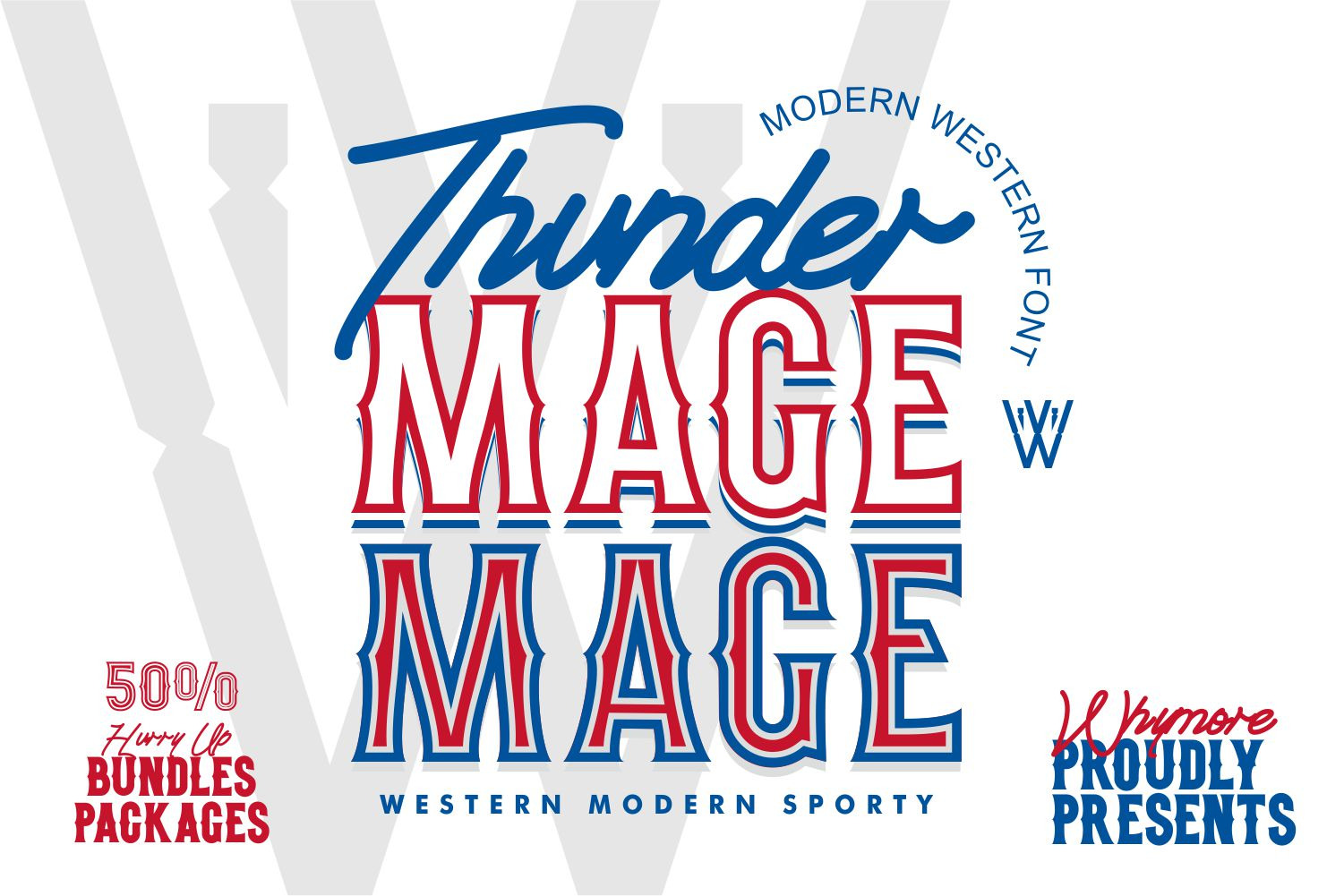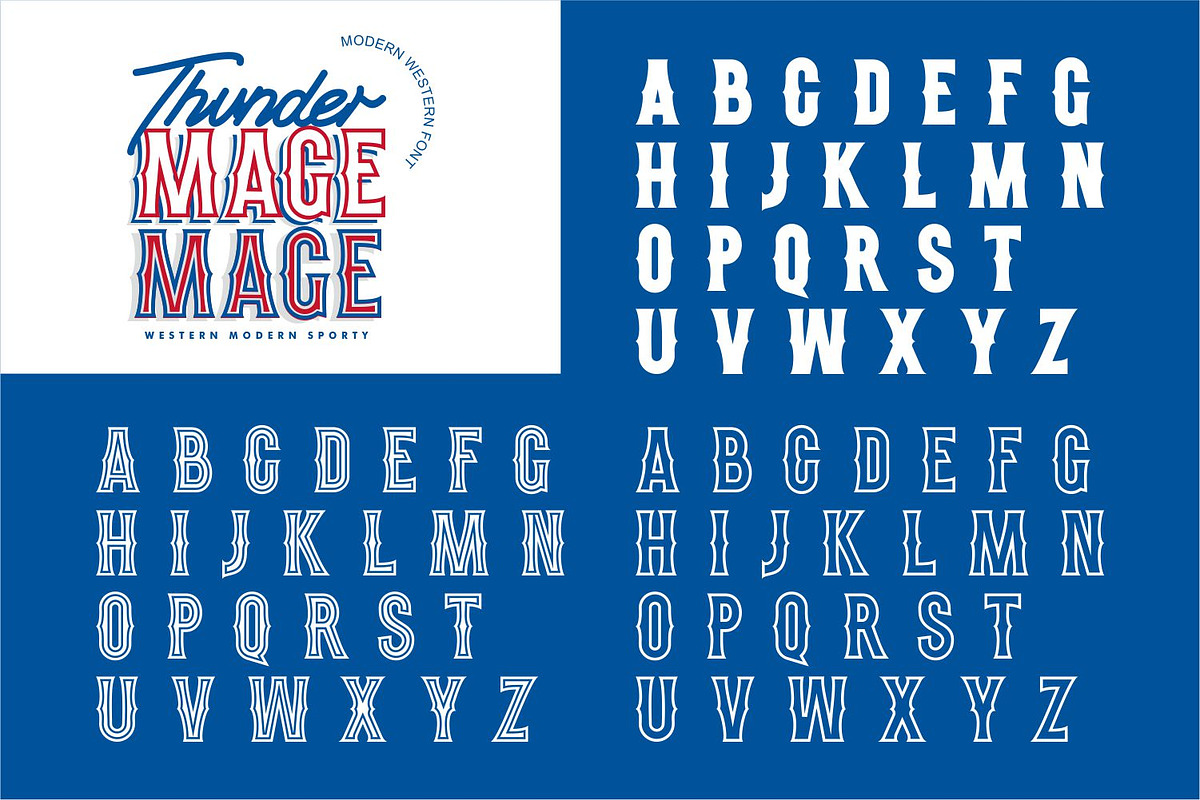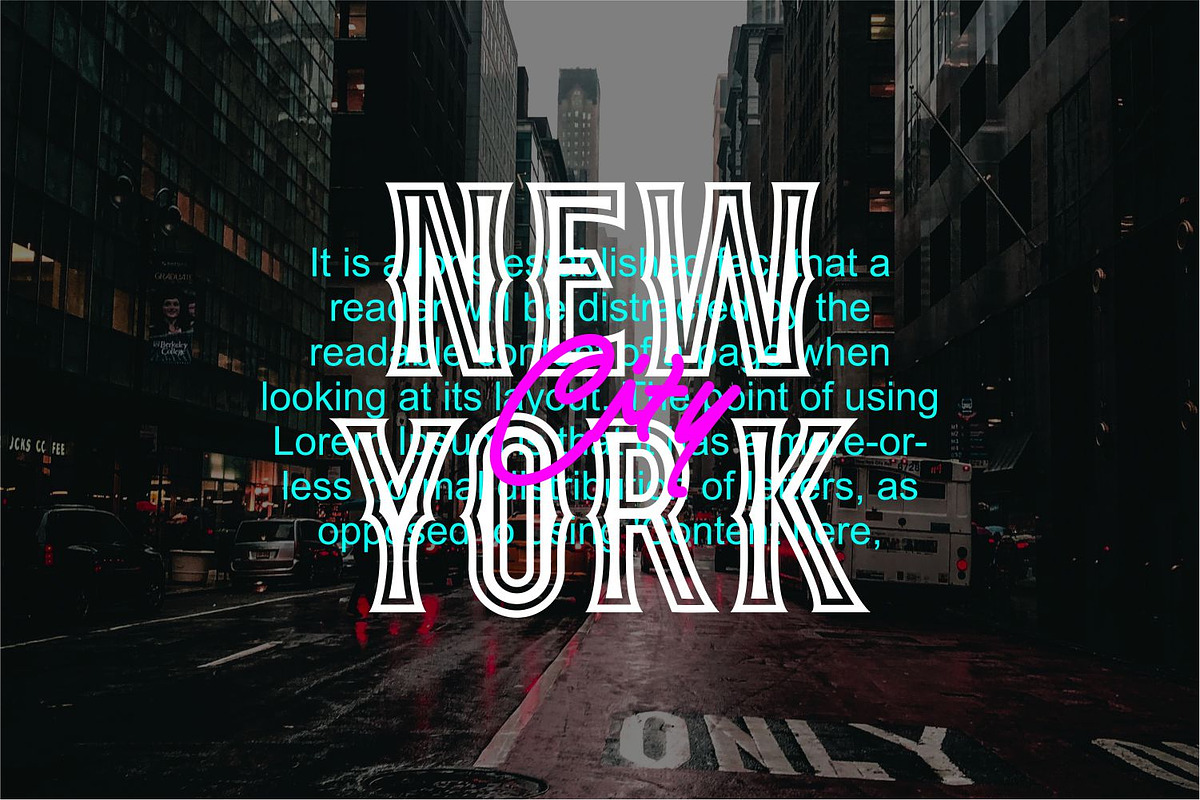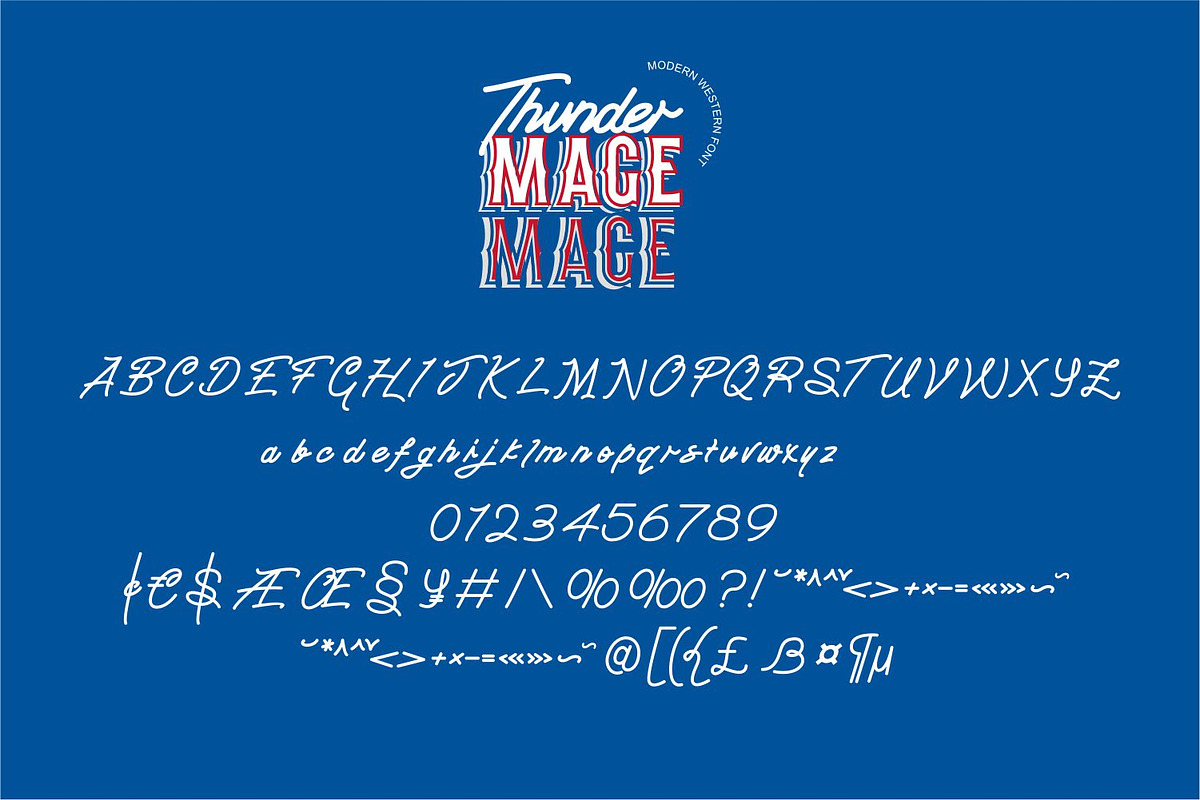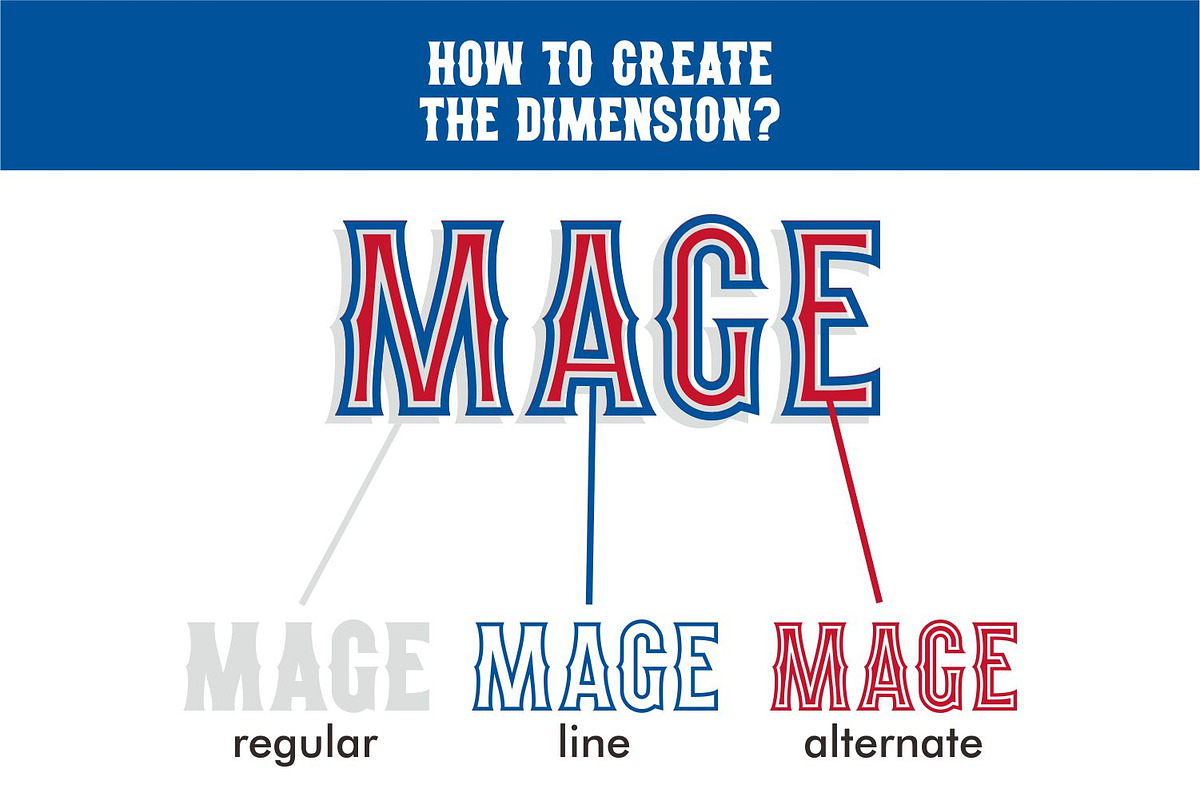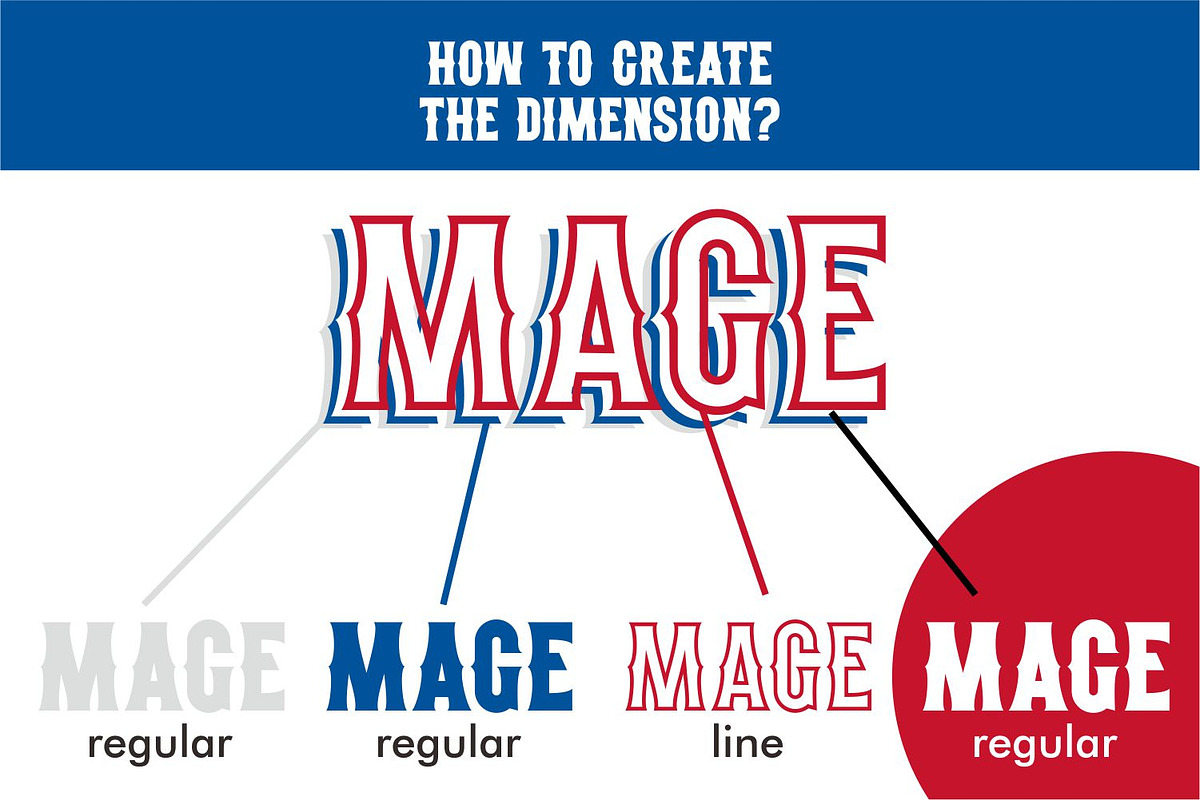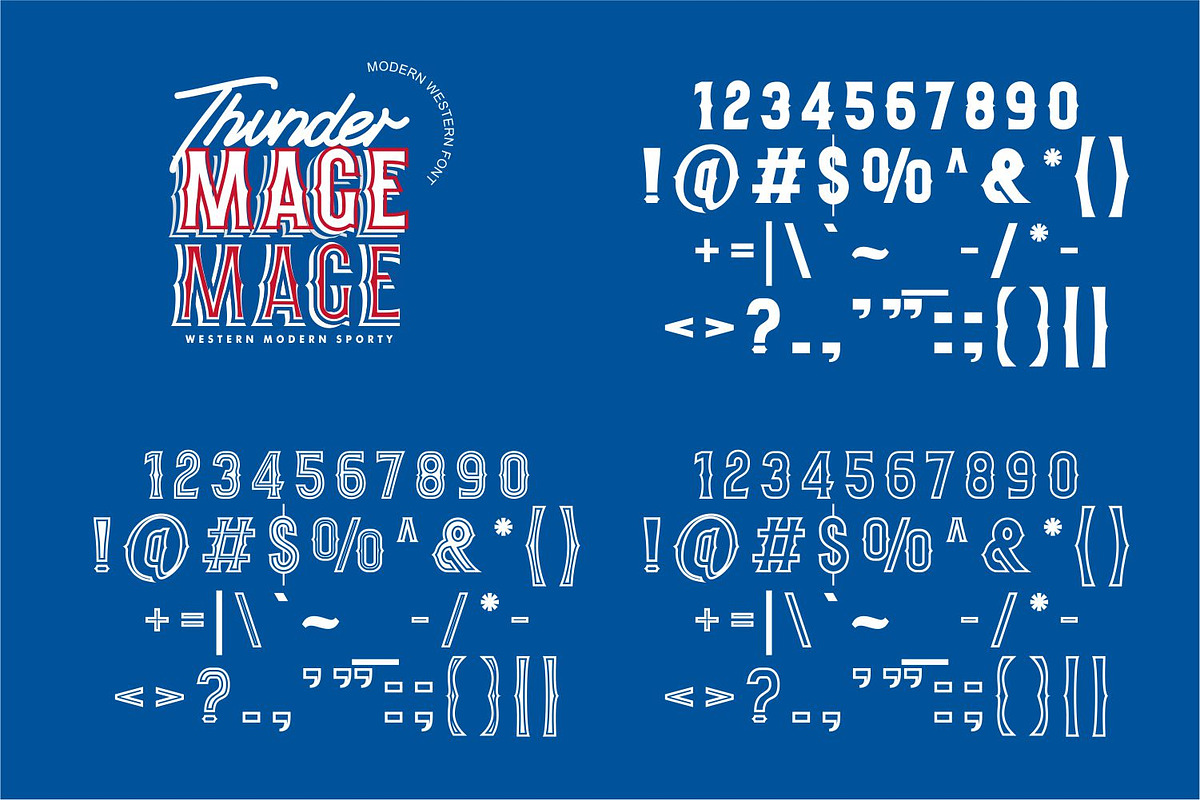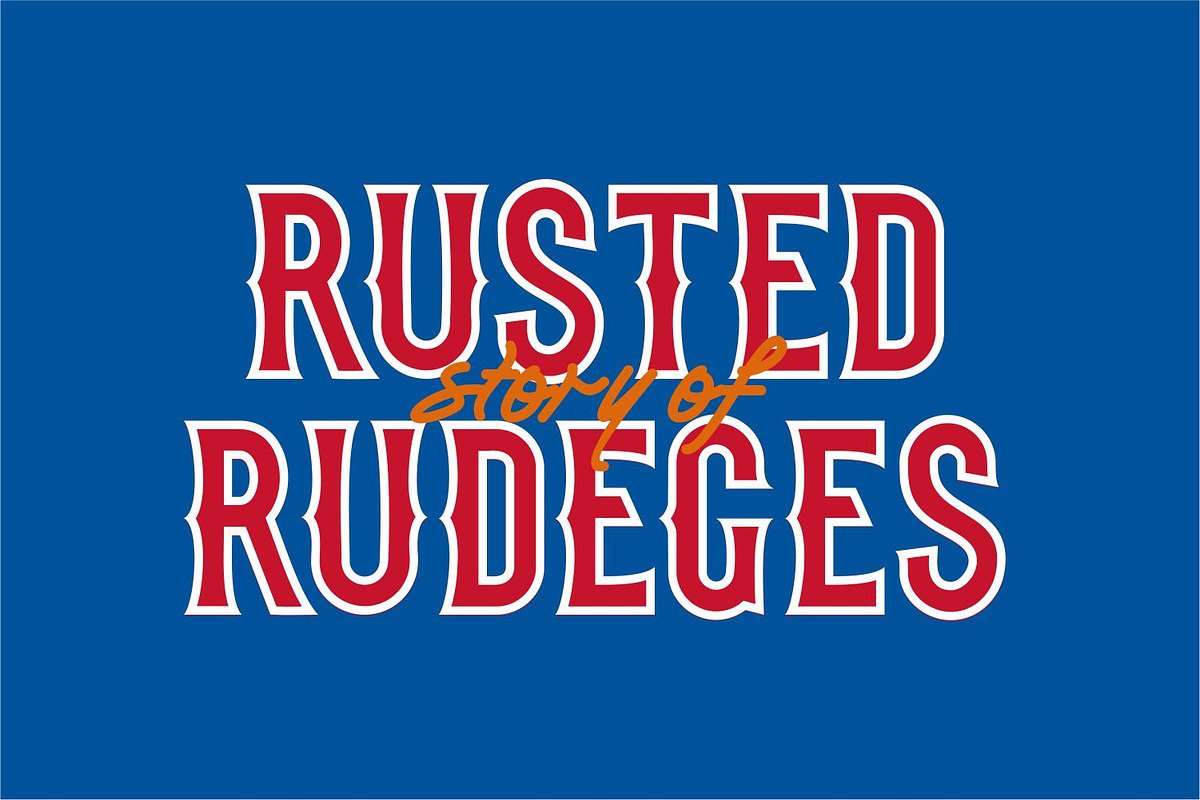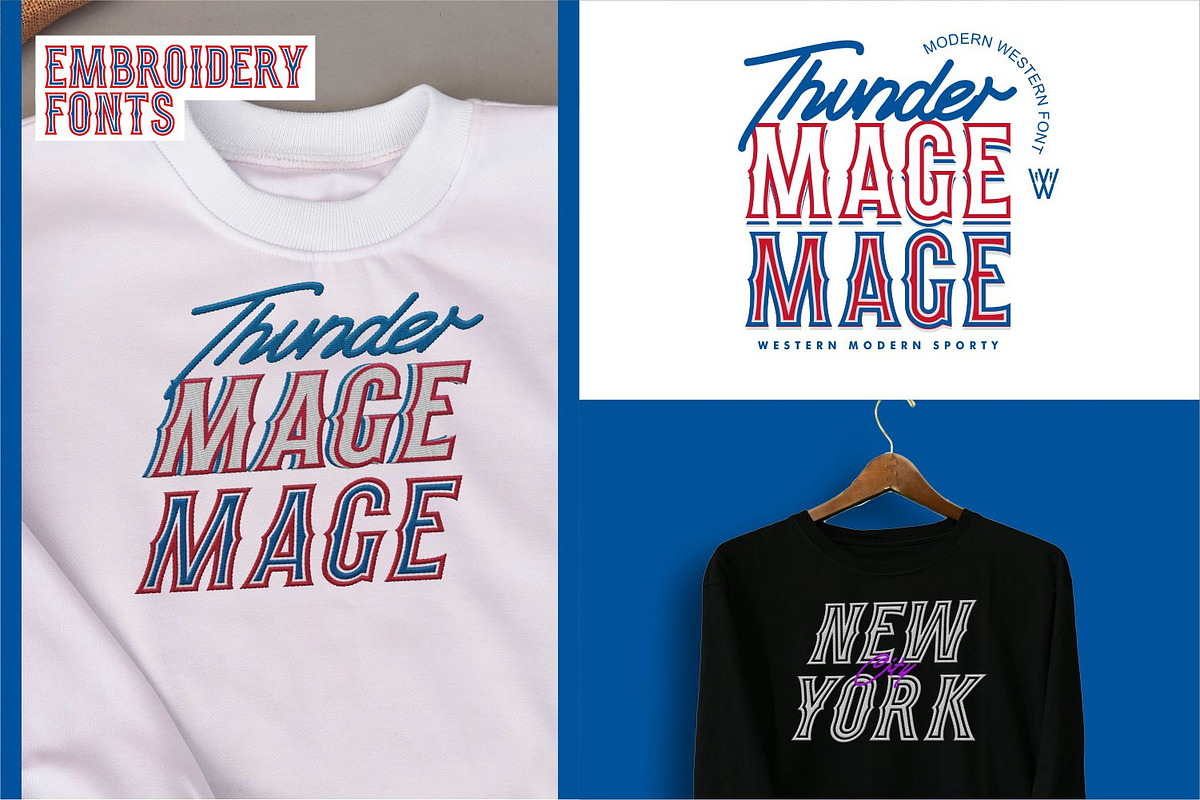
Thunder Mage Display Retro Font
The Thunder Mage Font is a bold and dynamic display typeface that commands attention with its striking appearance. With its sharp edges and powerful letterforms, this font adds a sense of energy and impact to any design project. Whether you’re creating headlines, posters, or branding materials, the Thunder Mage Font brings a touch of excitement and flair that captivates the viewer. Its versatility and boldness make it perfect for grabbing attention and leaving a lasting impression.